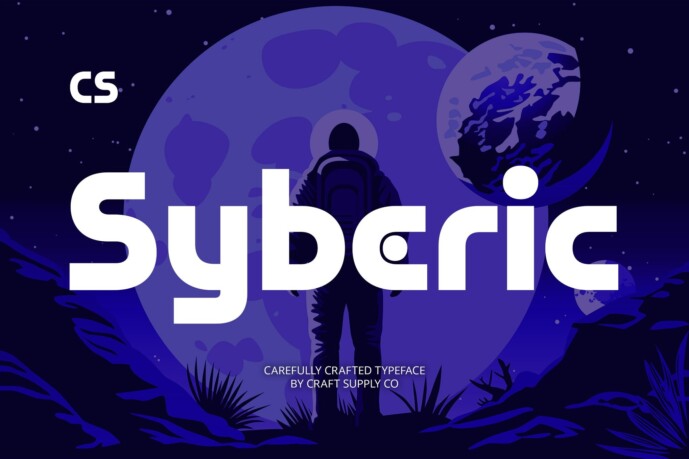
Syberic Techno Font
CS Syberic – Techno Font: Bold, Geometric, and Futuristic Typography
Sharp Lines and Precise Forms CS Syberic – Techno Font features bold, geometric shapes with sharp lines and meticulously crafted forms. Its precise, modern design exudes a sense of strength and assertiveness, perfect for projects that demand a bold, cutting-edge aesthetic. The clean, angular characters reflect a futuristic vibe, ensuring that your design stands out in any tech-related context.
Dynamic and Forward-Looking Design With its focus on dynamic shapes and a tech-forward style, CS Syberic is a display sans serif font designed to make an impact. Its modern, futuristic look suggests innovation and progress, making it ideal for branding, technology-related projects, and designs that aim to convey a sense of momentum and evolution.